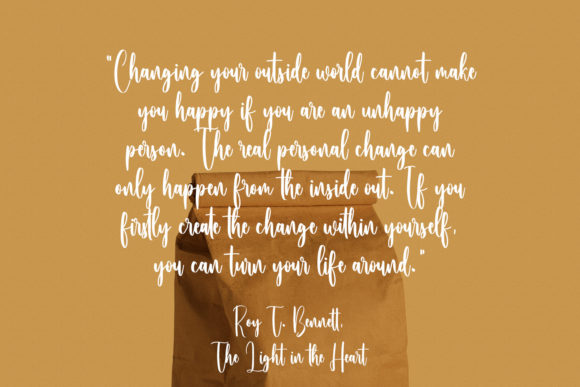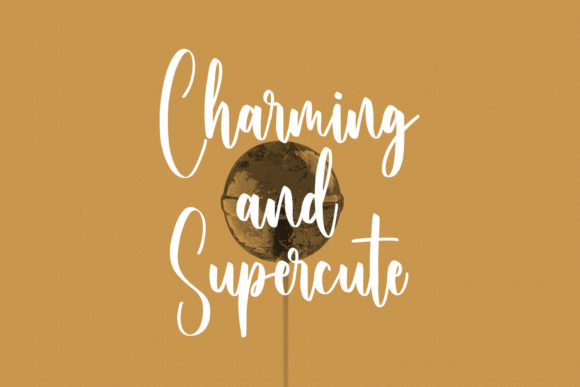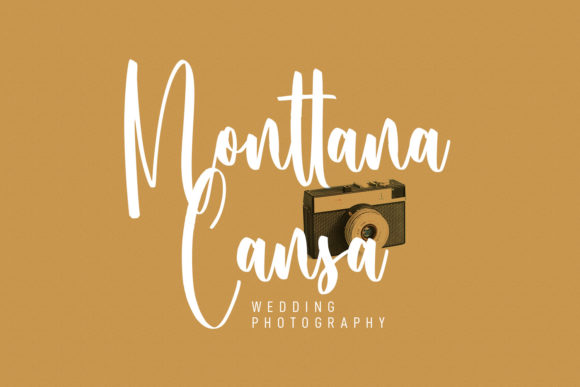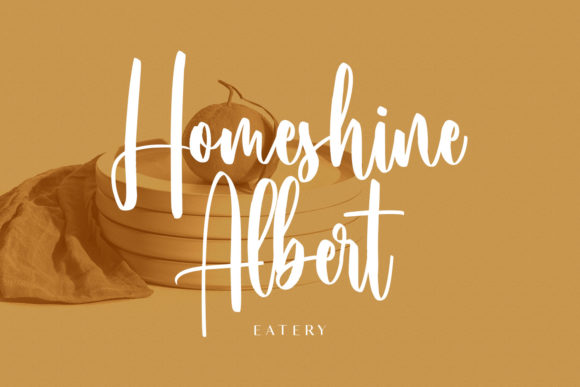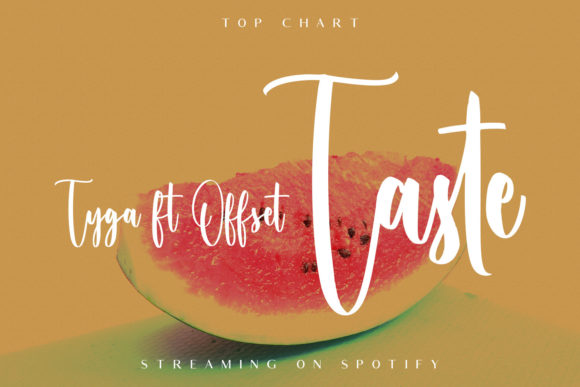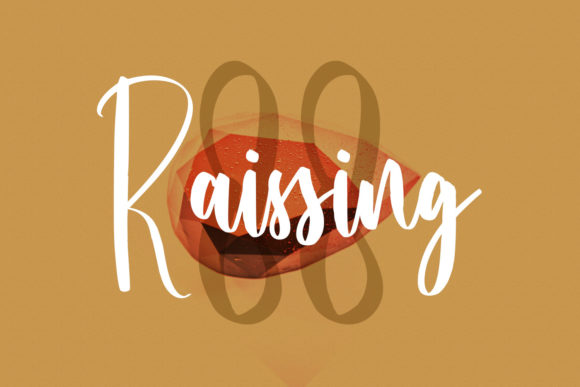
The Perfect Blend: Elevating Your Designs with Coffee Tables Script Font
As a designer, have you ever stared at a blank page, waiting for the perfect font to bring your vision to life? That’s exactly where I was when I discovered Coffee Tables Script Font – and it was love at first sight! The flowing, handwritten lines seemed to dance across the page, beckoning me to create something truly special.
Coffee Tables Script Font is a masterfully crafted font that effortlessly blends classic calligraphy with a modern twist. Designed to elevate your projects to new heights, this versatile font is the perfect addition to any designer’s toolkit. Whether you’re crafting a wedding invitation, a logo, or a branding package, Coffee Tables Script Font is sure to bring a touch of sophistication and elegance to your work.
- Unique Characteristics: Coffee Tables Script Font features a unique, handwritten style with subtle flourishes and imperfections, giving it a personal touch and a sense of authenticity.
Coffee Tables Script Font Review
Coffee Tables Script Font is a beautiful, handwritten font that’s perfect for adding a personal touch to your designs. ✨ The font is highly customizable, making it easy to adjust the weight, spacing, and texture to suit your needs. The script style is elegant and sophisticated, making it ideal for use in wedding invitations, menus, and other high-end projects.
The font is also highly legible, even at small font sizes, which makes it a great choice for body text. The character set is comprehensive, including a wide range of punctuation and special characters.
- ✨ Highly customizable
- ✨ Elegant and sophisticated script style
- ✨ Highly legible
- ✨ Comprehensive character set
- ⚠️ May not be suitable for use in very formal or traditional settings
- ⚠️ Can be quite ornate, making it difficult to read at very small font sizes
- ⚠️ Some characters may not render well in certain contexts (e.g. mobile devices)
Overall, I’m impressed with Coffee Tables Script Font. While it has some limitations, its elegance and customizability make it a great choice for a wide range of projects. With a little bit of finesse, this font can really elevate your designs and make them stand out.
Use Coffee Tables Script Font for:
– Invitations and event graphics
– Branding and logo designs
– Wedding and baby shower decorations
For the most effective use of this font, pair it with a clean and simple sans-serif font to create visual balance.